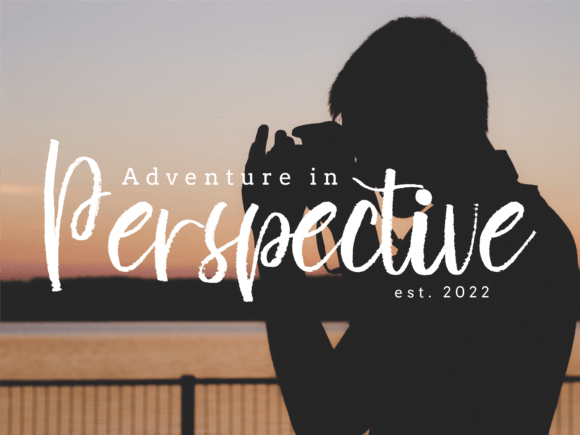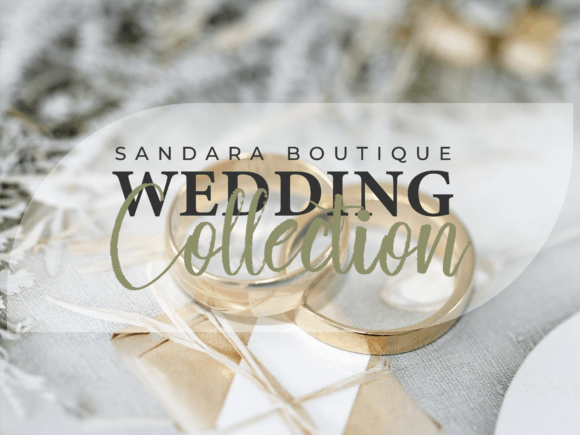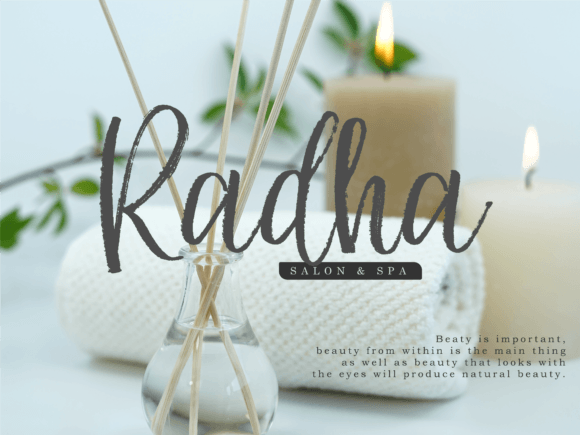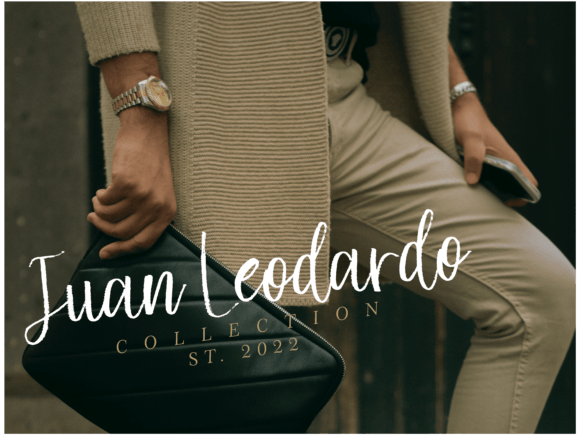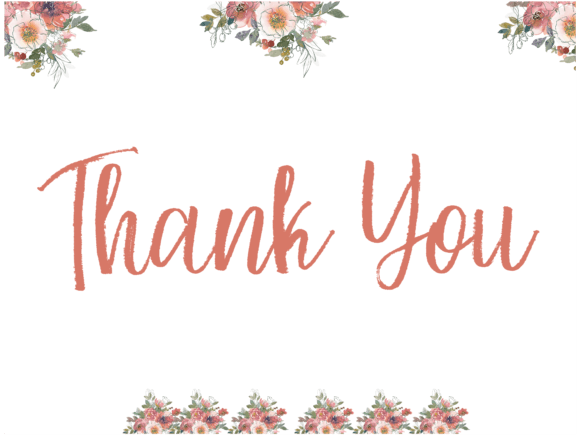
The Asmaul Font: A Brush Handwritten Beauty for Creative Projects
I’ll never forget the time I was working on a wedding invitation design for a client, and I just couldn’t seem to find the perfect font. The project required something elegant, yet playful; something that would capture the couple’s fun and adventurous personalities. After hours of scrolling through font libraries, I stumbled upon Asmaul – a beautiful brush handwritten font that instantly stole my heart. In this article, I’ll share my experience with Asmaul, its features, and how to make the most of it in your creative projects.
An Honest Review of Asmaul Font
What I Love About Asmaul ✨
- 💫 Unique brush handwritten style that’s perfect for making a statement
- 🎨 Versatile and can be used for a wide range of projects, from wall displays to social media posts
- 👍 Well-suited for designs that require a personal touch, such as wedding invitations and product packaging
- ⚠️ Some letters may require manual kerning for optimal spacing
- ⚠️ Limited availability of stylistic alternates, which may limit design flexibility
The Backstory Behind Asmaul
Asmaul was designed by a talented typographer who wanted to create a font that would capture the beauty of handwritten script. Inspired by traditional brush calligraphy, Asmaul is a modern take on classic typography. The font’s creator aimed to craft a font that would be both elegant and approachable, making it perfect for a wide range of creative projects.
| Font Name | Asmaul Font |
| Author | Arief Indra Pratama |
Q: What type of projects is Asmaul best suited for?
A: Asmaul is a versatile font that can be used for a wide range of projects, including wall displays, wedding invitations, social media posts, product packaging, and more.
Q: Does Asmaul support OpenType features?
A: Yes, Asmaul supports OpenType features, including ligatures and stylistic alternates.